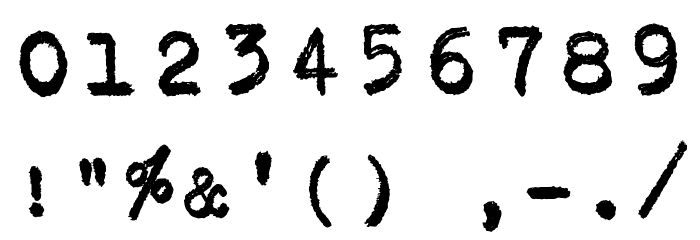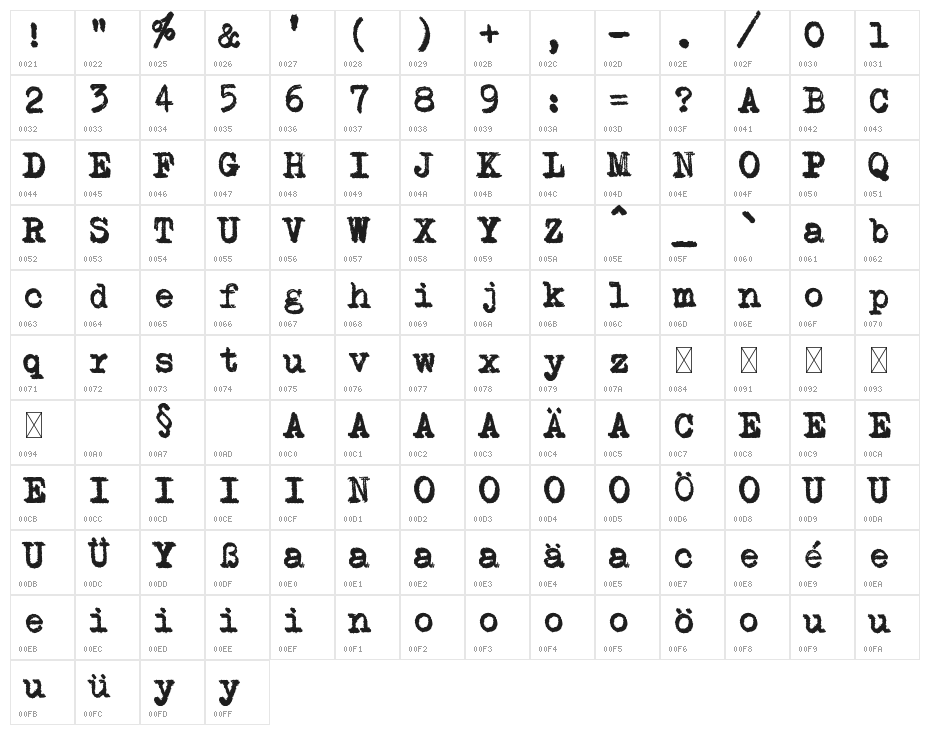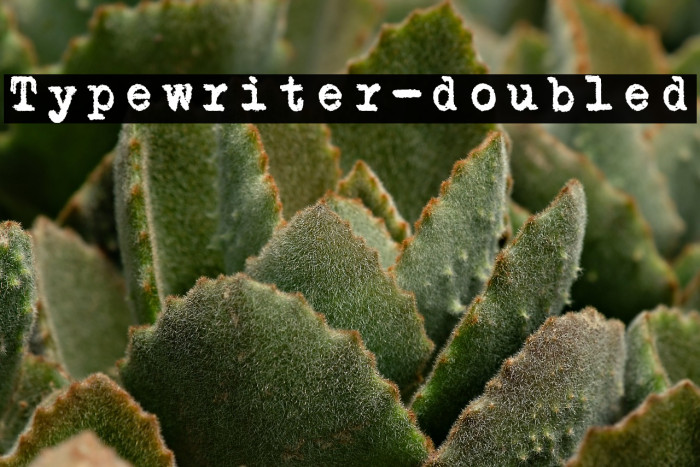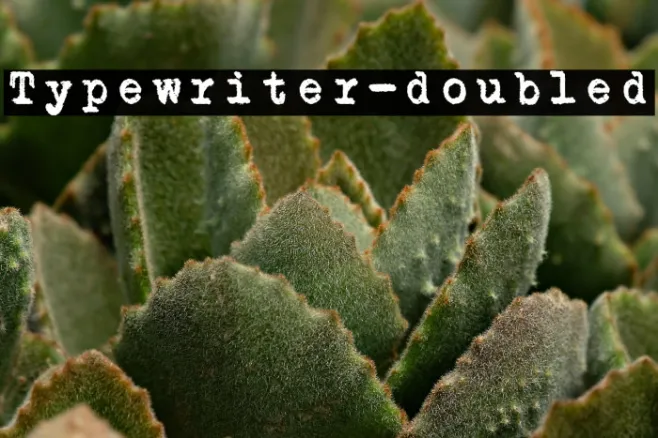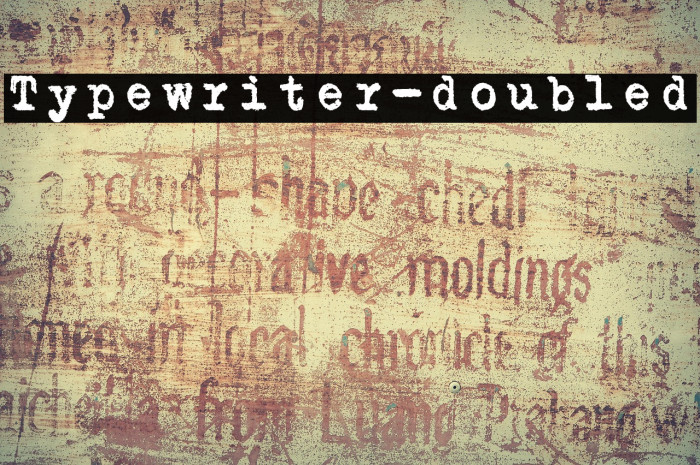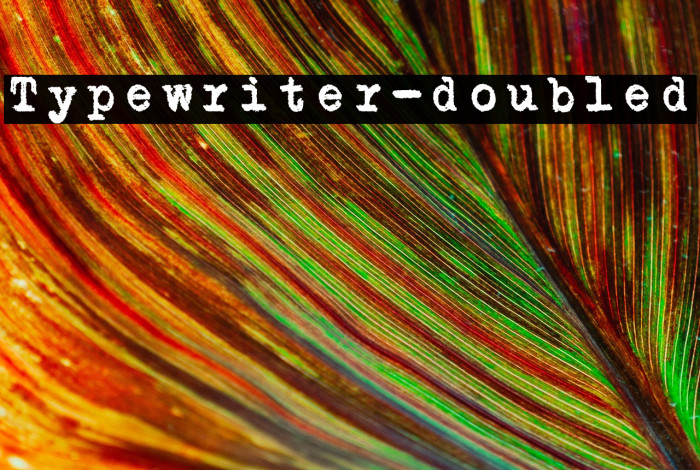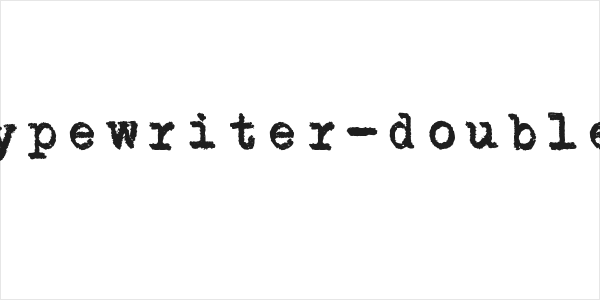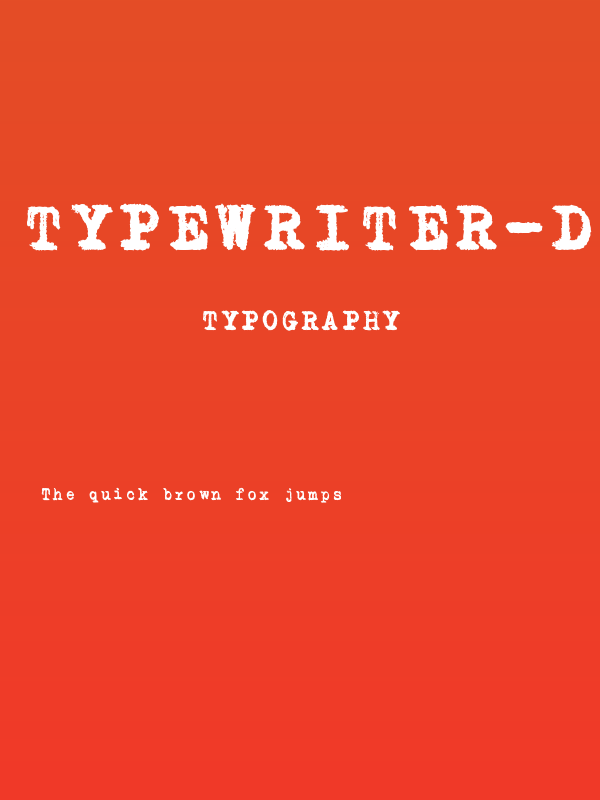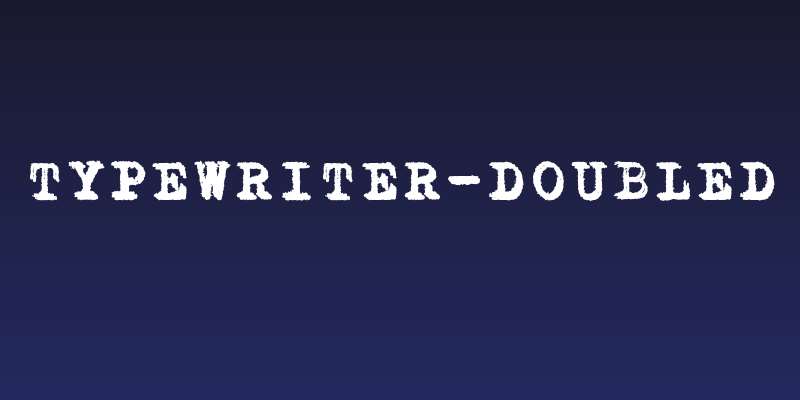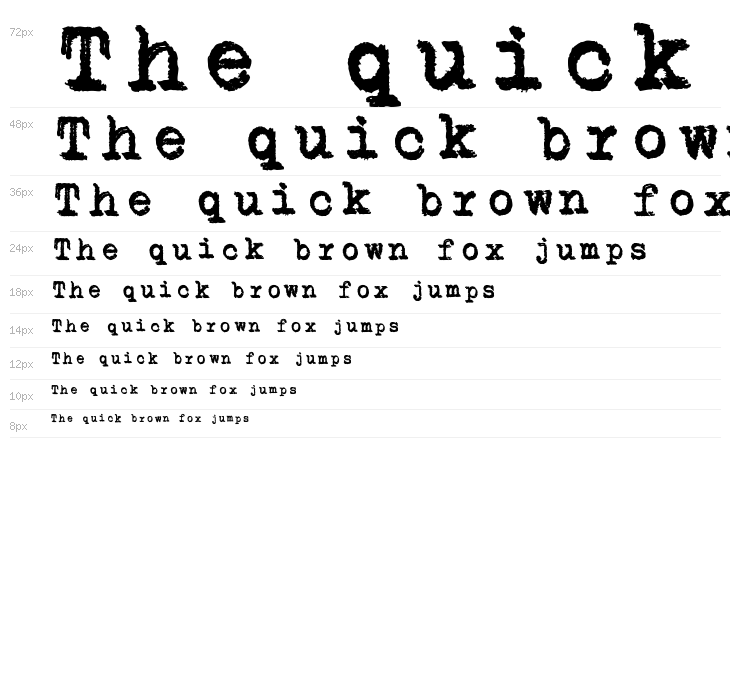
Typewriter-doubled Font
Typewriter-doubled Description
This font embodies the classic aesthetic of a vintage typewriter, featuring a doubled, slightly distressed appearance that adds a layer of authenticity and character. Each letter is distinct, with a rough texture that mimics the imperfections of ink on paper. The uppercase and lowercase letters maintain a consistent style, while the numerals and special characters complement the overall design. This font captures the essence of a bygone era, making it ideal for projects that require a touch of nostalgia or a retro vibe.
| Use Case | Headlines, Logos, Decorative text |
| Proposed Projects | Ideal for retro-themed designs, vintage posters, typewriter-inspired art, and projects that require a nostalgic touch. |